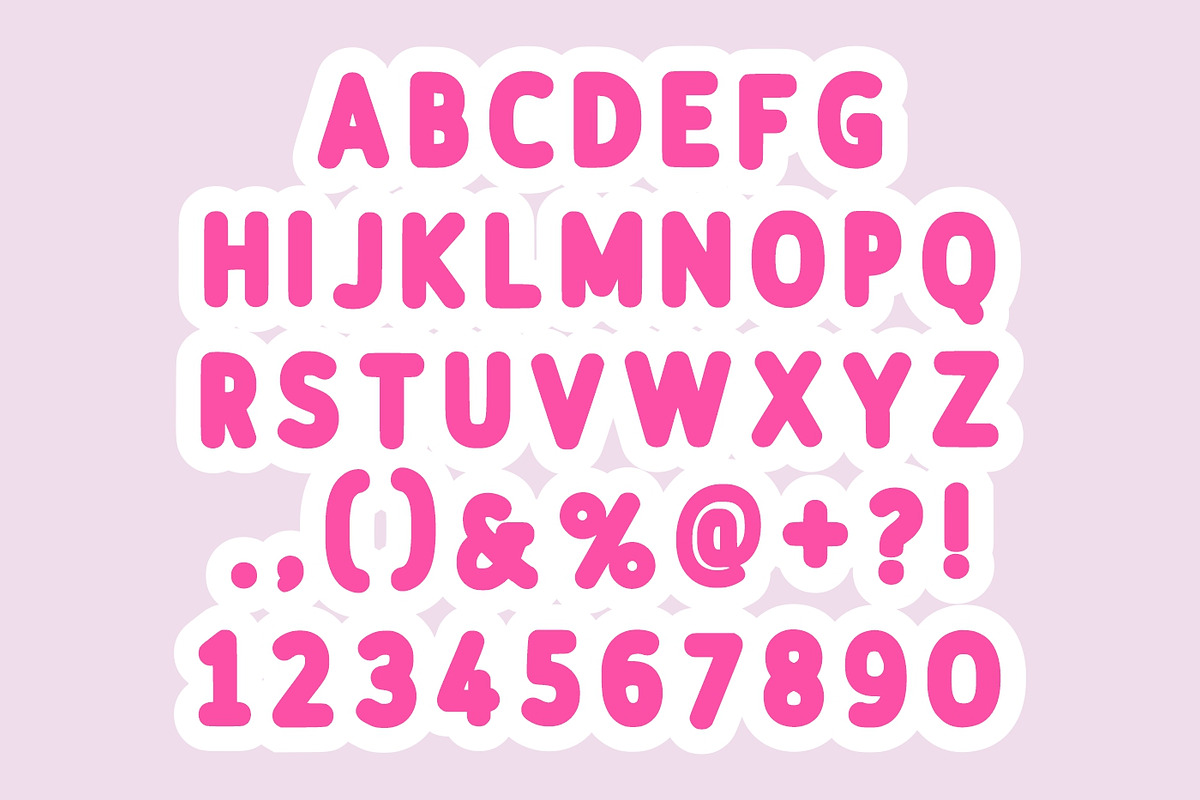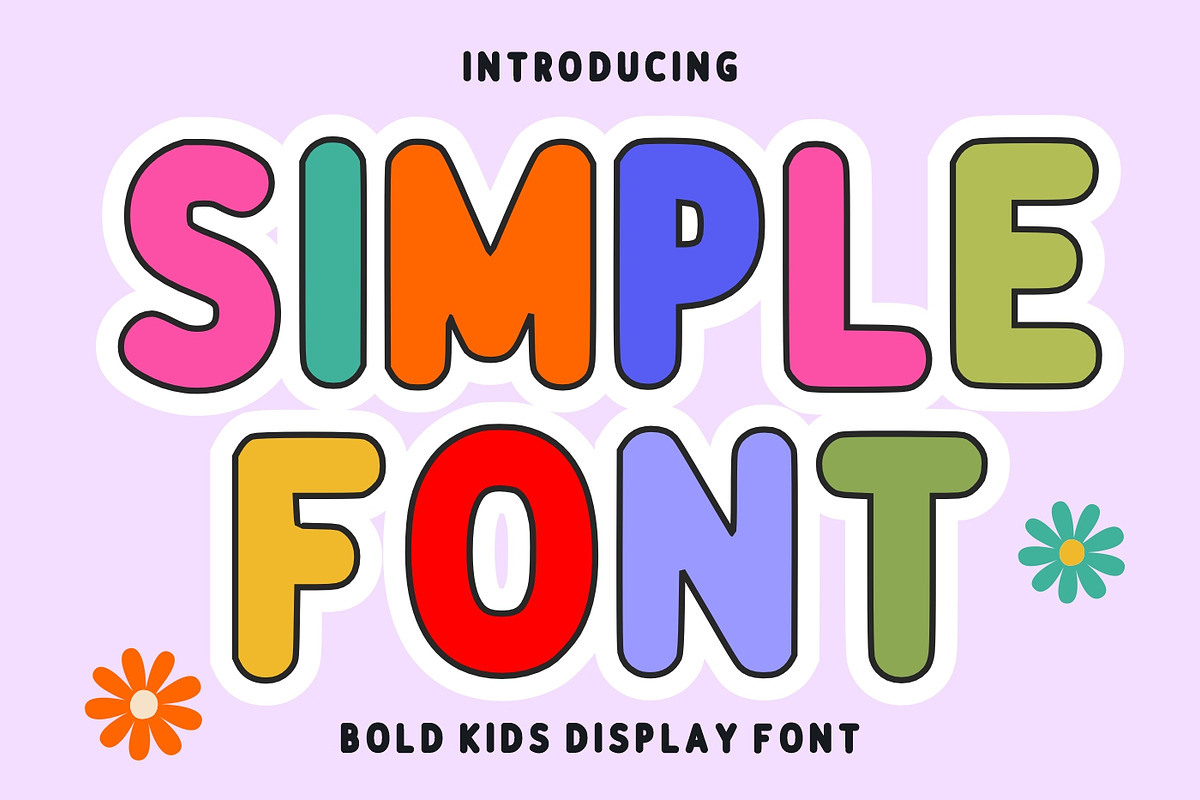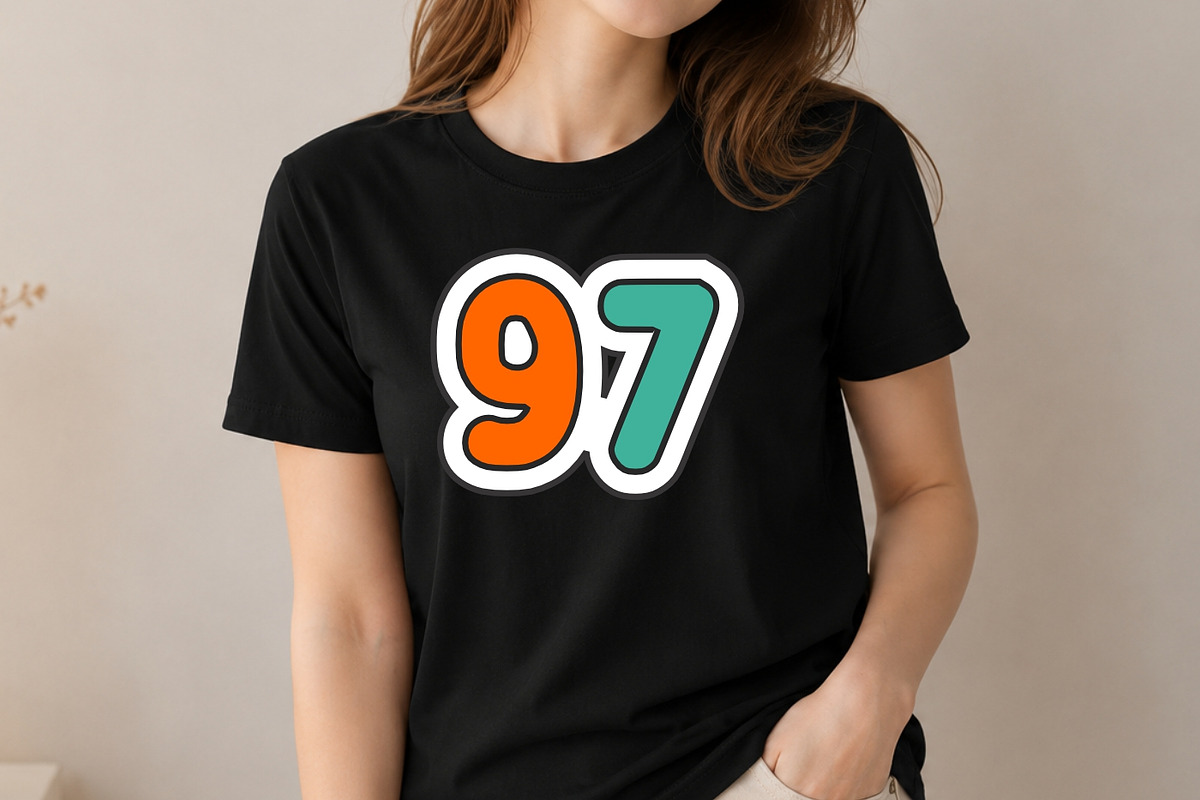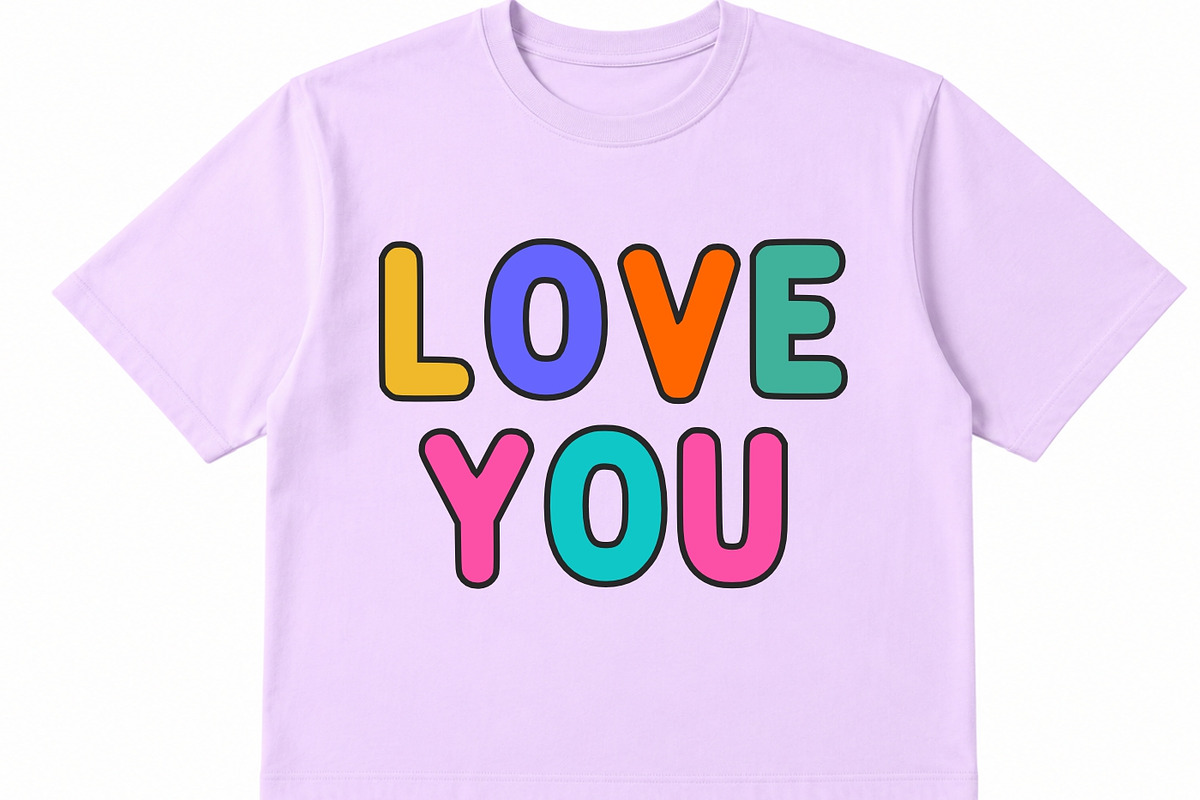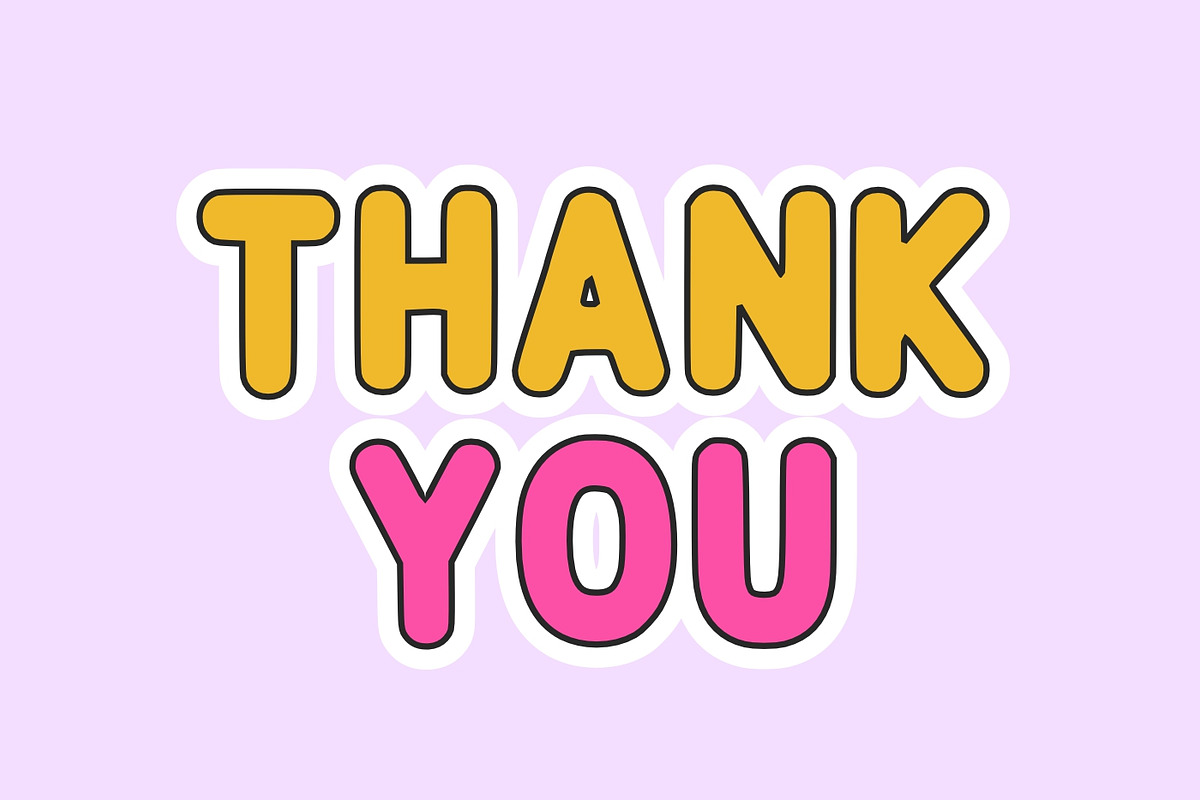
Simple
Simple is a fun and bold kids display font with colorful playful characters and a cheerful cartoon style. This font is perfect for children’s projects, school designs, posters, birthday invitations, toy branding, comic titles, stickers, packaging, and playful social media graphics. Its rounded shapes and cute appearance make it ideal for creating eye-catching and friendly typography designs.